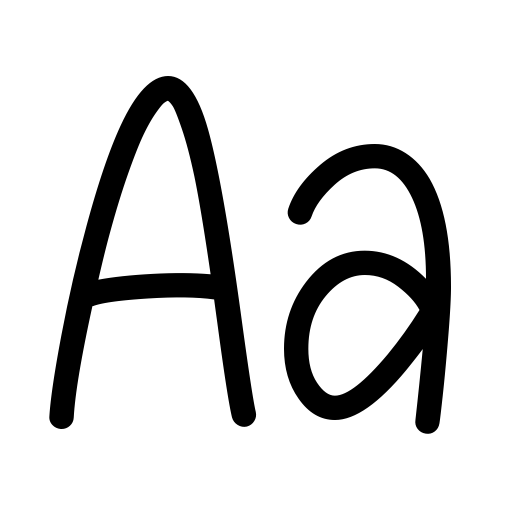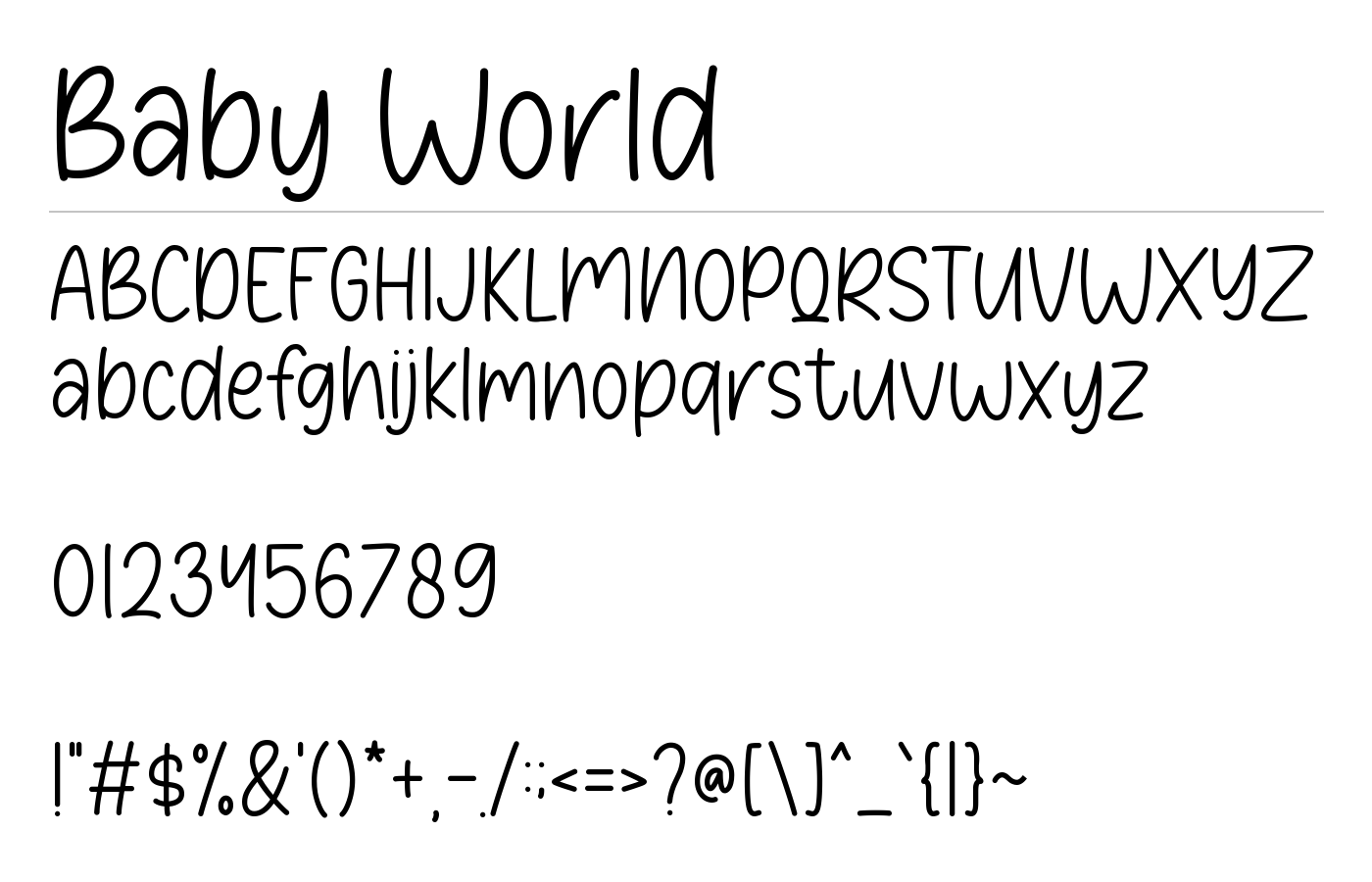
Baby World is a playful, hand-drawn sans serif font with a light weight and tall, narrow letterforms that give it a friendly and approachable feel. Its smooth, rounded strokes and casual style make it ideal for children's products, informal branding, and creative projects seeking a warm, inviting touch. This font works especially well in headlines, logos, and packaging where a fun, youthful personality is desired.
Baby World Font
About Baby World Font
| Font family | Baby World Font |
| Designer | Risma Ramawi |